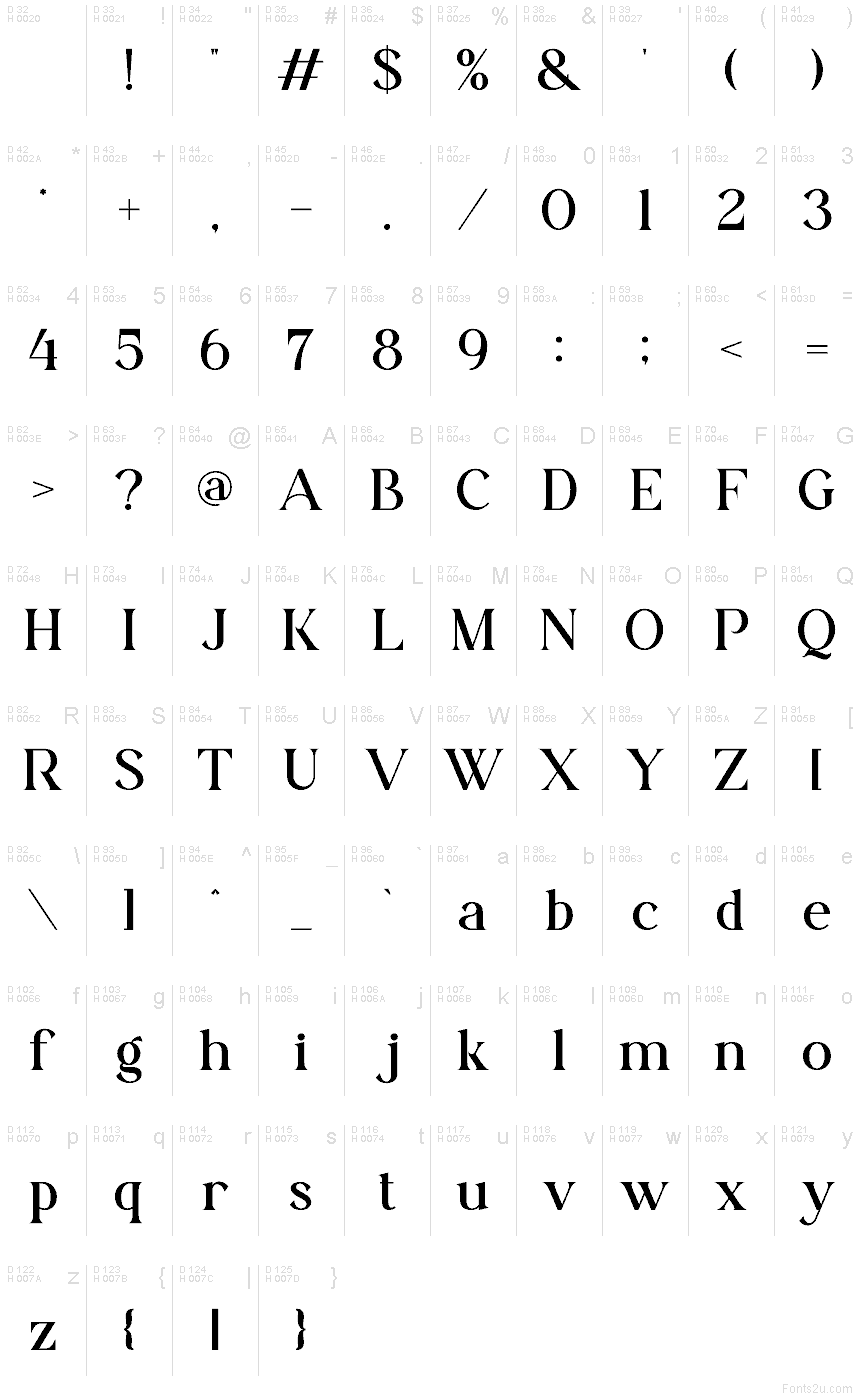
Blenko
Blenko font by Ermedia Studio is a free high-contrast serif display font. Its defining move is the sculpted interplay of razor-edged serifs and velvety, inky curves—the kind of cut-and-glow contrast that reads luxurious at a glance. Thick-and-thin strokes carve crisp silhouettes, while generous counters lend an elegant, unhurried rhythm that holds up beautifully at headline sizes.
Using Blenko, you get a statement face that shines on boutique branding, editorial headlines, packaging, posters, wedding invitations, and album covers. This free font communicates refinement without stiffness, giving projects a polished, modern-classic voice. For balance, pair it with a clean grotesque like Inter or set small captions in a light sans; let Blenko take the spotlight in larger sizes.